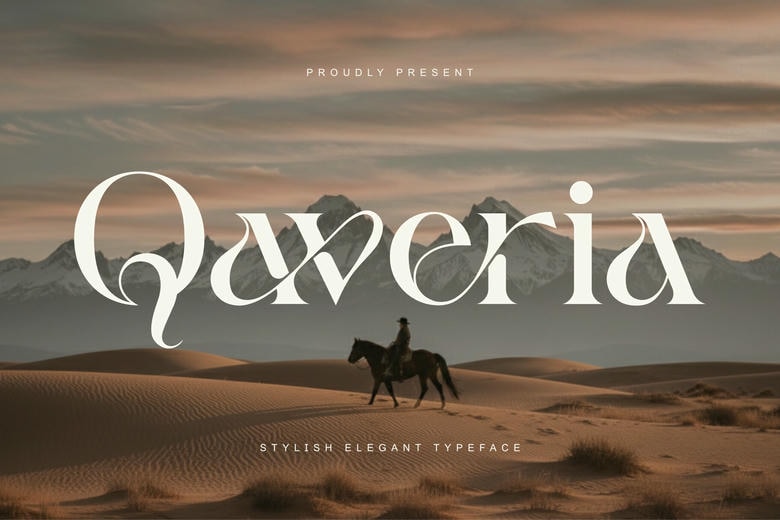
Qaveria Font
Qaveria is a serif style of font that is both luxurious and artistic at the same time and has been designed to have the ideal balance of both. Its unique curves, polished lines and smooth letterforms give it a sophisticated aesthetic that will shine out in any high budget design work. The characters are all carefully crafted to provide a classic look, modern, expressive, and daintily adorned.
Qaveria fits best in high end branding of fashion, beauty, skincare, jewelry, perfume, editorial layouts and luxury product packaging. Its individuality gives its personality an exclusiveness and makes every word more refined and appealing.
Having a sophisticated design and artistic flow, Qaveria transforms logos, titles in magazines, wedding invitations, social media designs, and website header into the beautiful visual messages. Qaveria is the right typeface to use in case you want to be surrounded with beauty, class, and modern sophistication.
Qaveria Serif Font